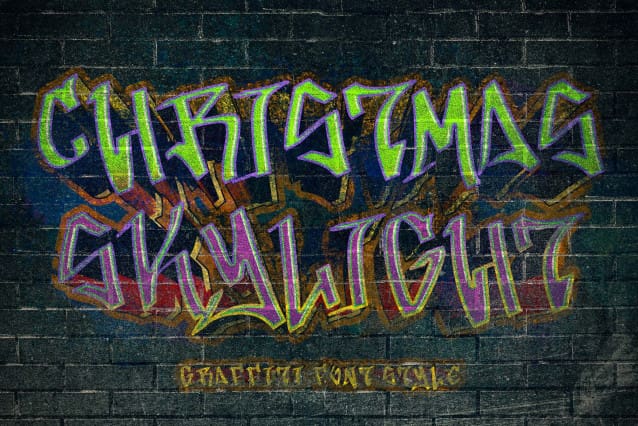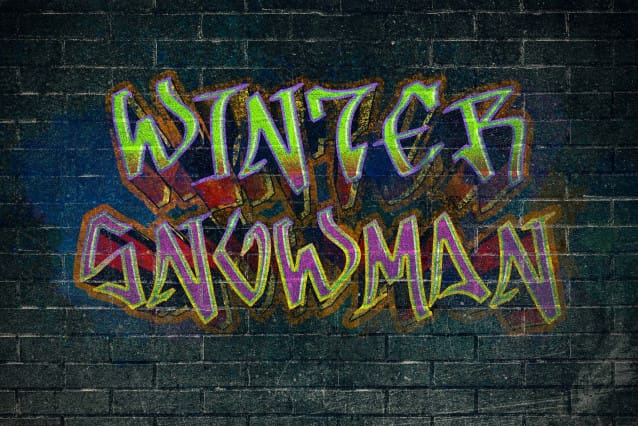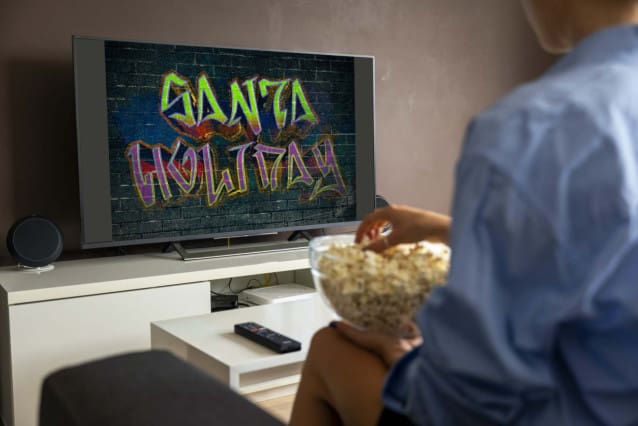
Christmas Skylight Font
Christmas Skylight Font is a unique and elegant graffiti font. This font comes with uppercase, lowercase, numbers, punctuation, and multilingual support. Perfect for banners, branding, posters, prints, logos, stickers, Christmas, winter, tattoos, Halloween, procreate, and more.